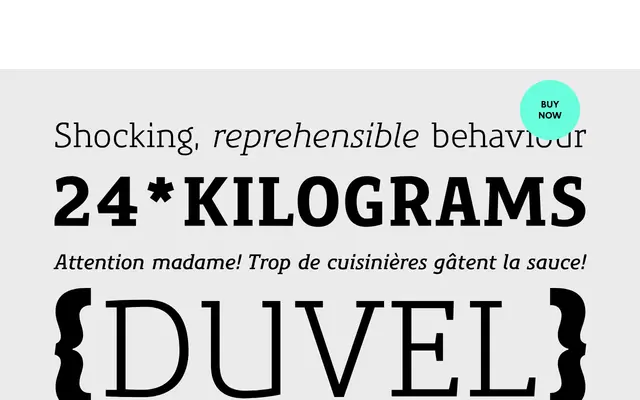
Precious Serif
G-Type · Nick Cooke
A chunky contemporary slab serif by Nick Cooke, designed to pair directly with Precious Sans across print and digital work.
Designed by Nick Cooke, Precious Serif shares its metrics and construction with the Precious Sans family, making it well suited to mixed typesetting within a single layout. The family spans six weights from Book to UltraBlack, each with a true italic, giving twelve styles in total. Extended Latin coverage includes West European, Central and East European, Baltic and Turkish scripts, with tabular lining figures and standard OpenType features.
A chunky, contemporary slab serif with consistent stroke widths and sturdy serifs, designed as a companion to Precious Sans and sharing its metrics and overall construction approach.